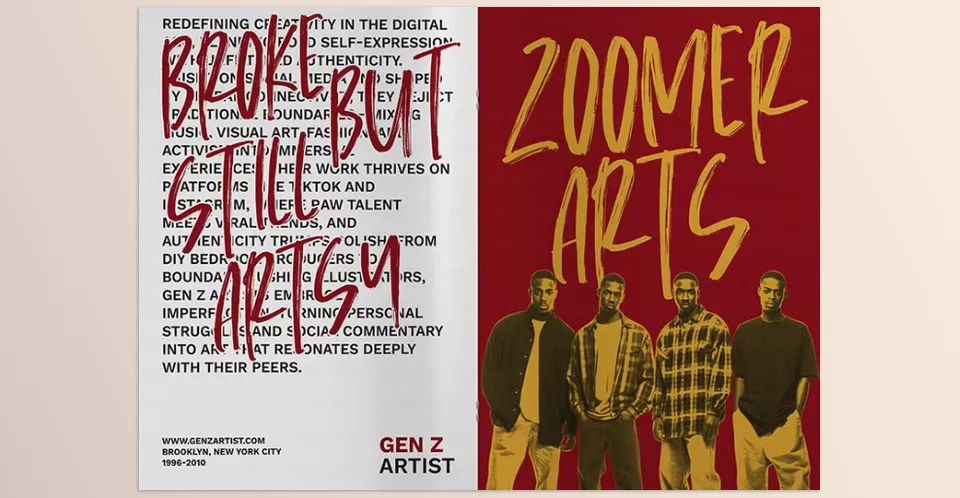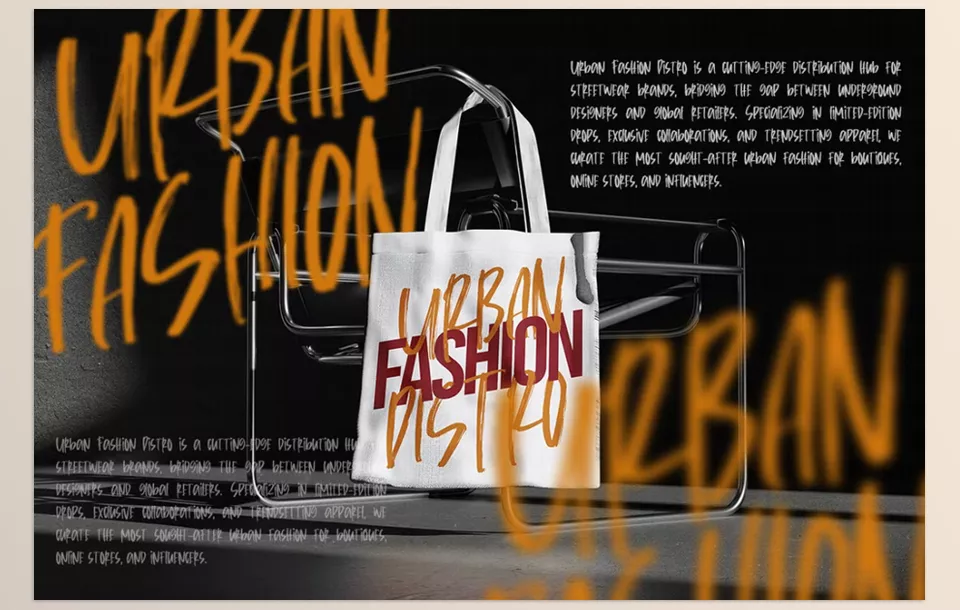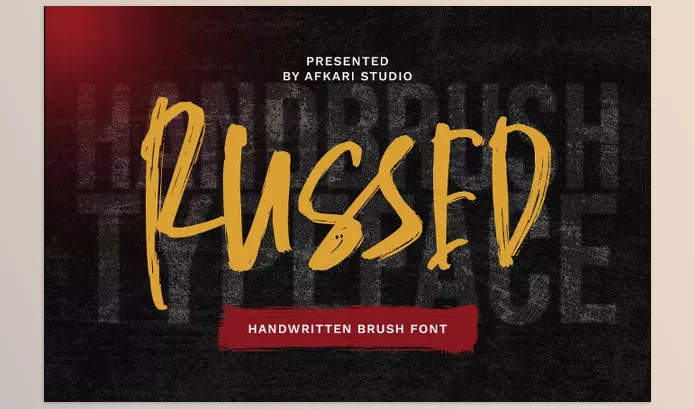
Russed Handwritten Brush Font will take your breath away with its handwritten, brush style combining a personal touch with vibrant elegance. Rustic touch of bold brush strokes makes this typeface ideal for posters, advertisement billboards, or other works that need attention.
Afkari Studio – Russed Handwritten Brush Font Features
• Complete Character Set Covers all the basic requirements and punctuation like в, В, а, А, 0-9,! Etc.
• Character Variety offers even more stylistic alternates and even more ligature additions.
• International Symbols: Any foreign symbols can be easily inserted without losing compatibility.
Preview Russed Handwritten Brush Font
Image 1: Define Personal Style – This font dynamically captures the essence of creativity for all your projects.
Russed Handwritten Brush Font - Define Personal Style - This font dynamically captures the essence of creativity for all your projects.
Image 2: The handcrafted look of the text gained with this font brings true art to every project.
Russed Handwritten Brush Font - The handcrafted look of the text gained with this font brings true art to every project.